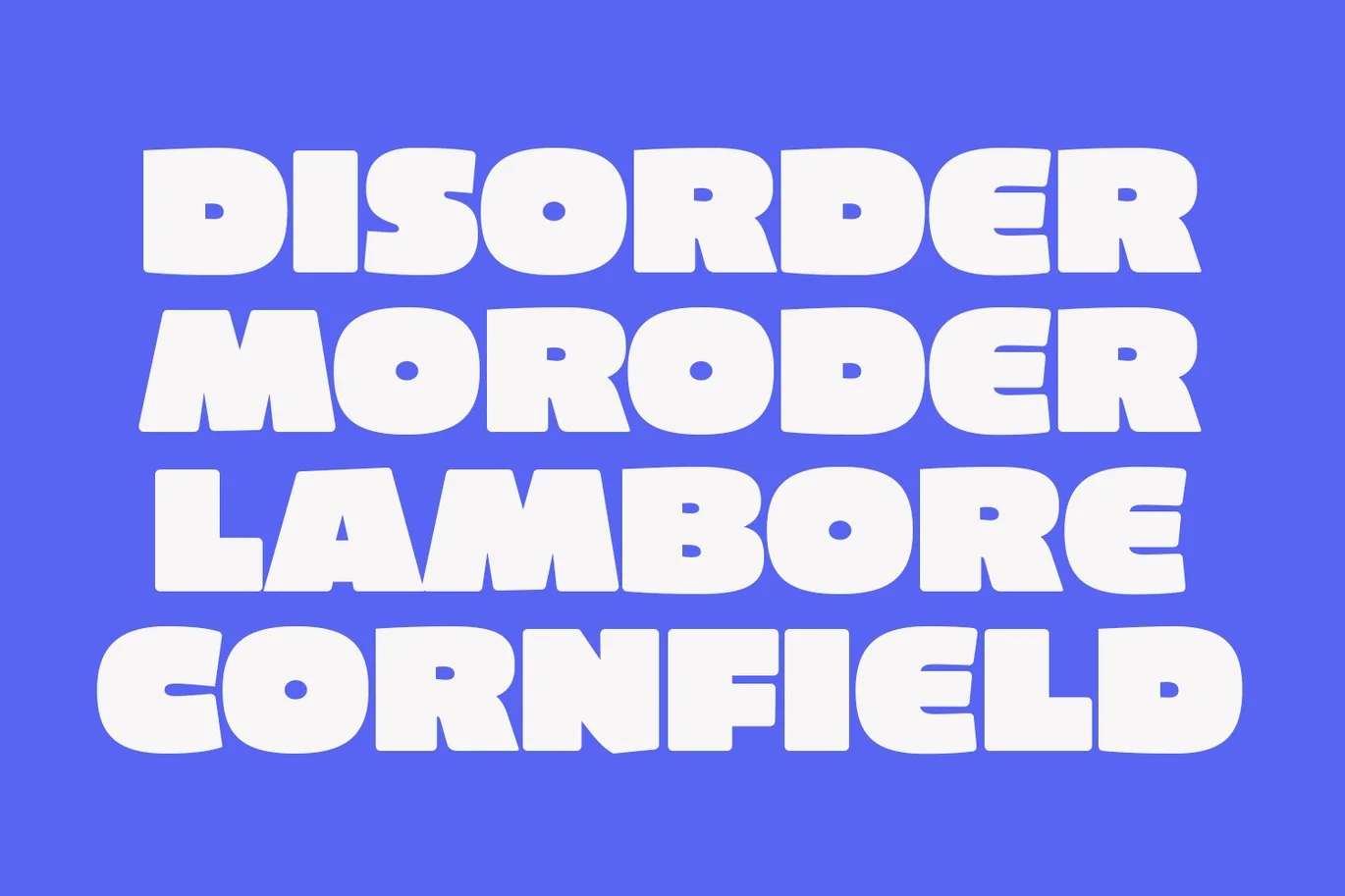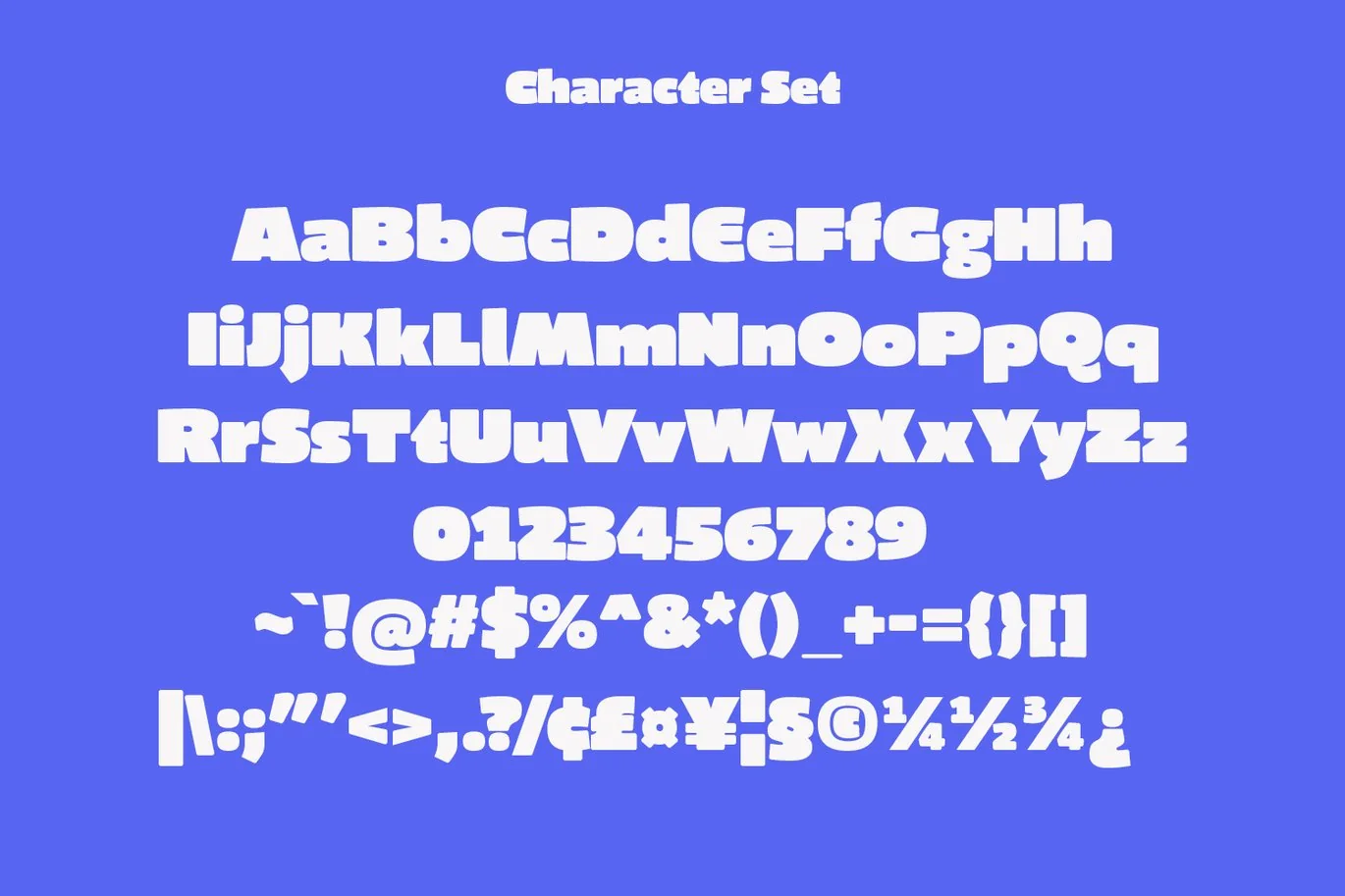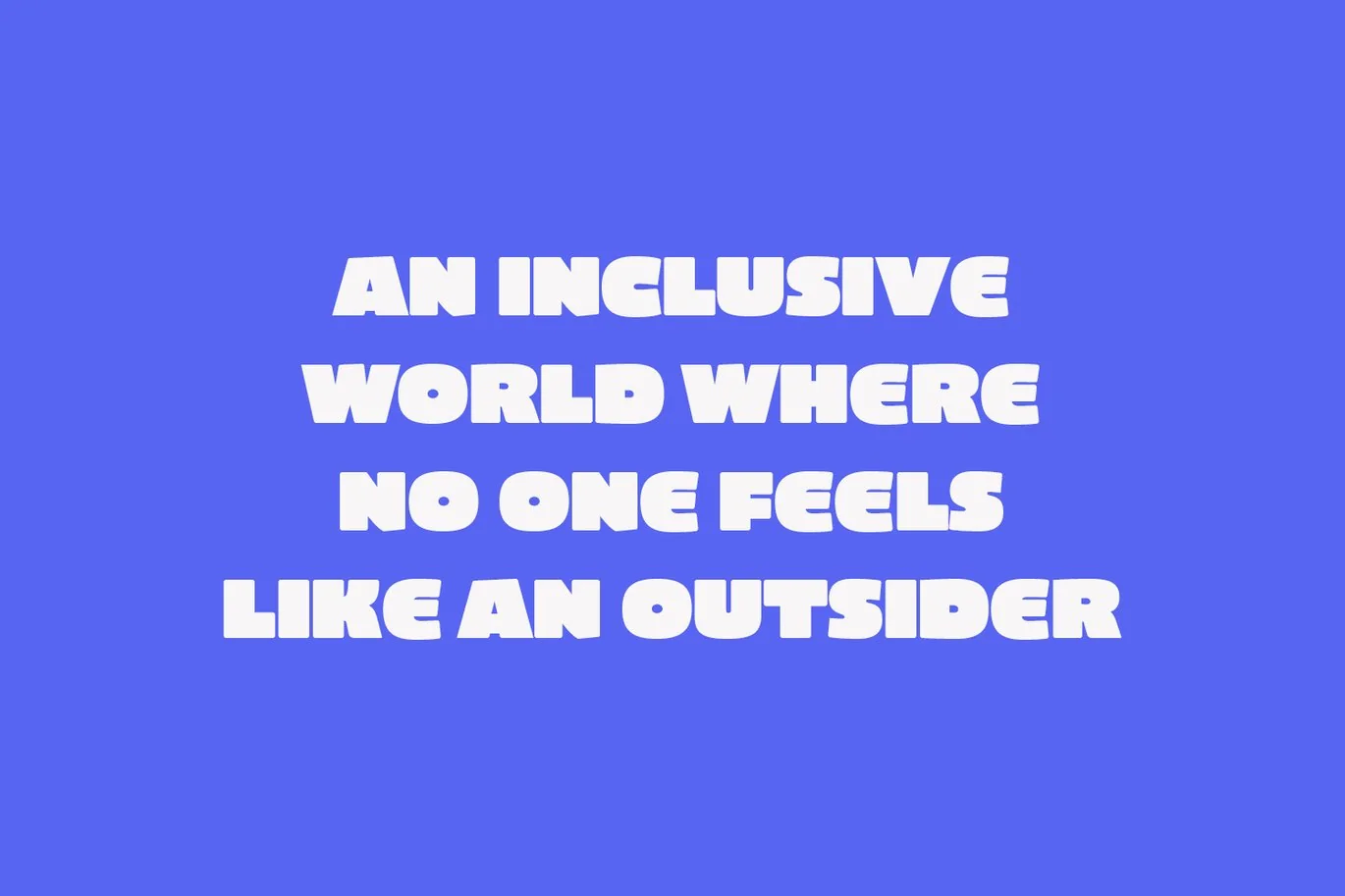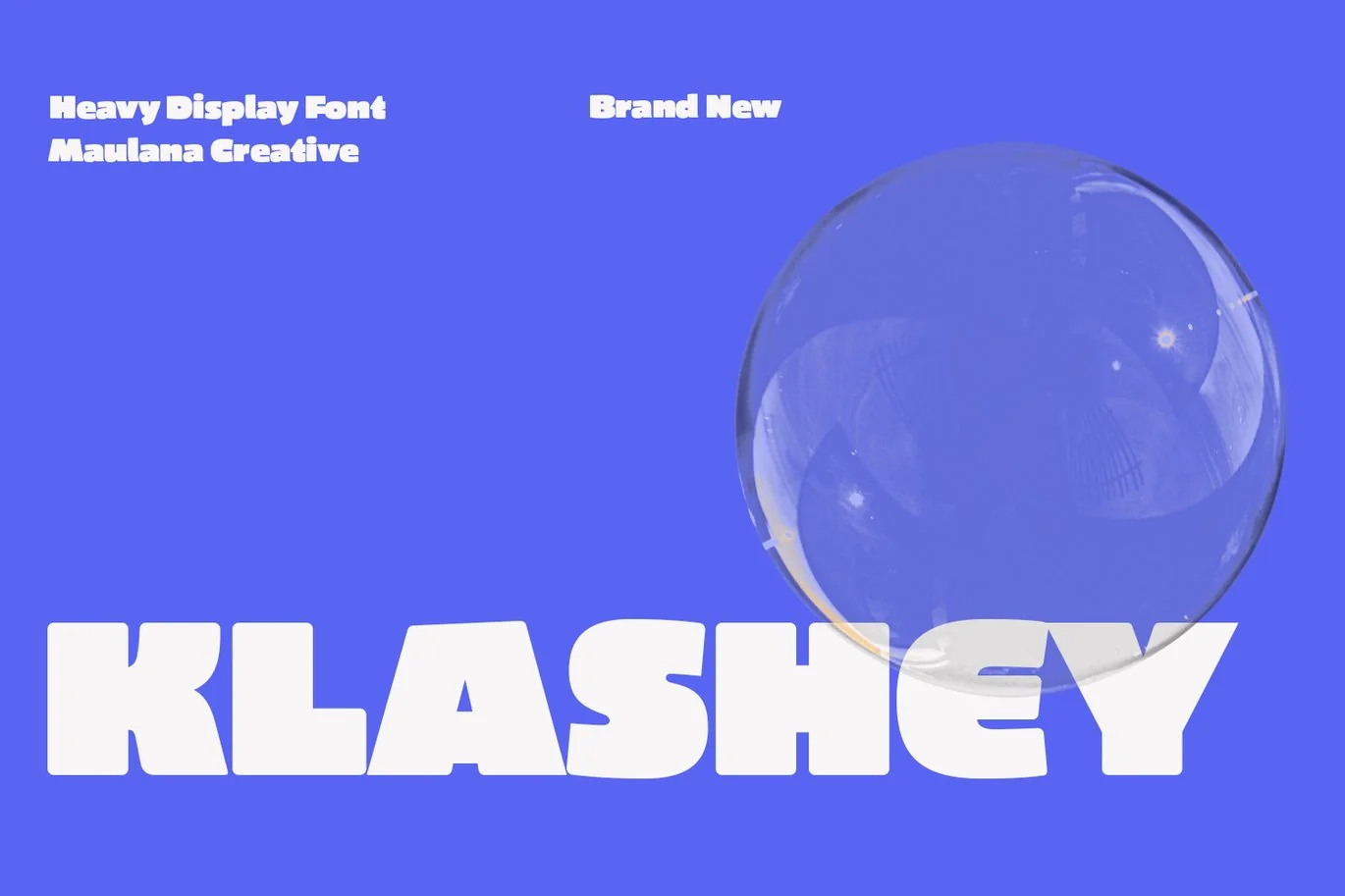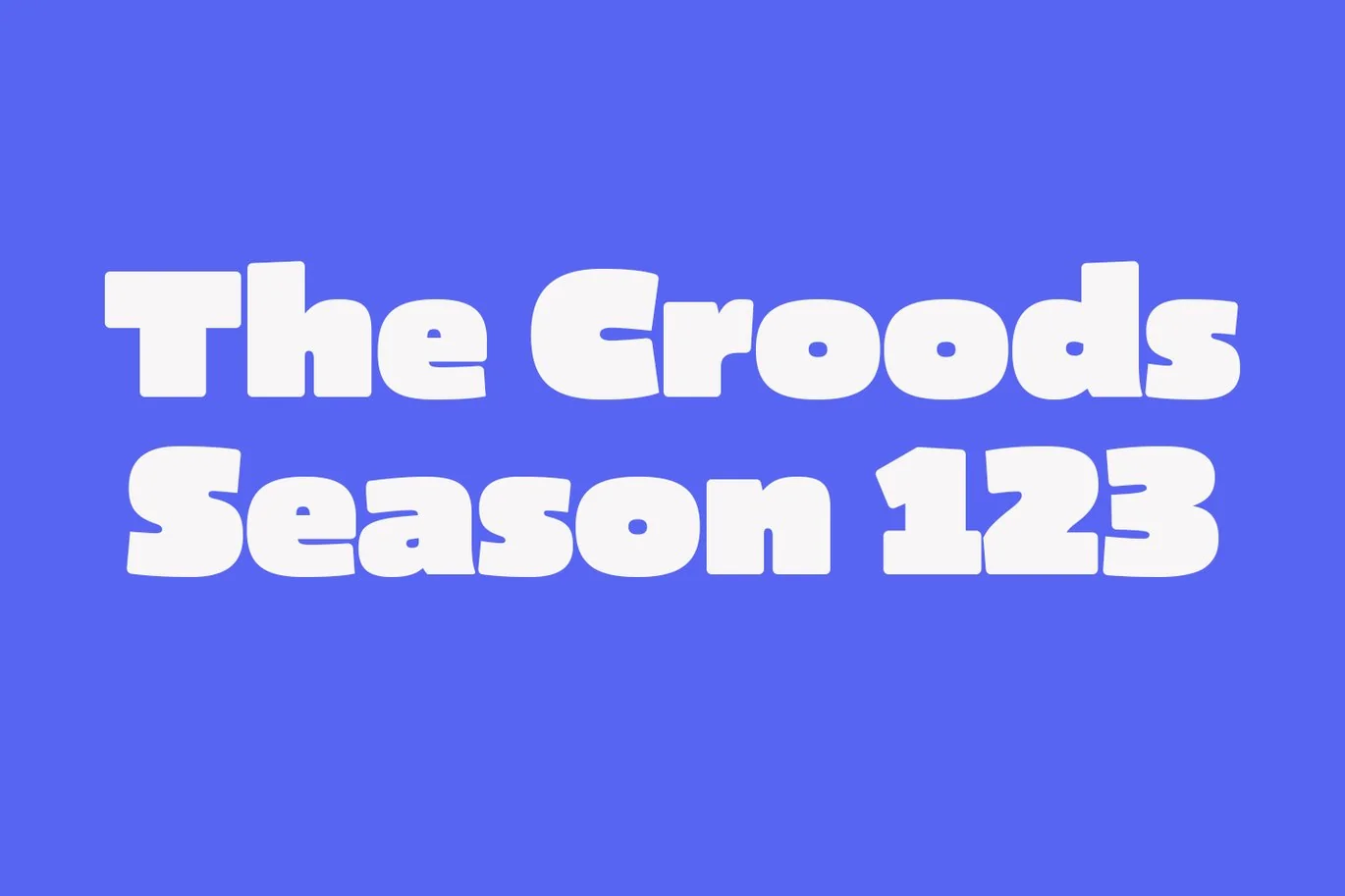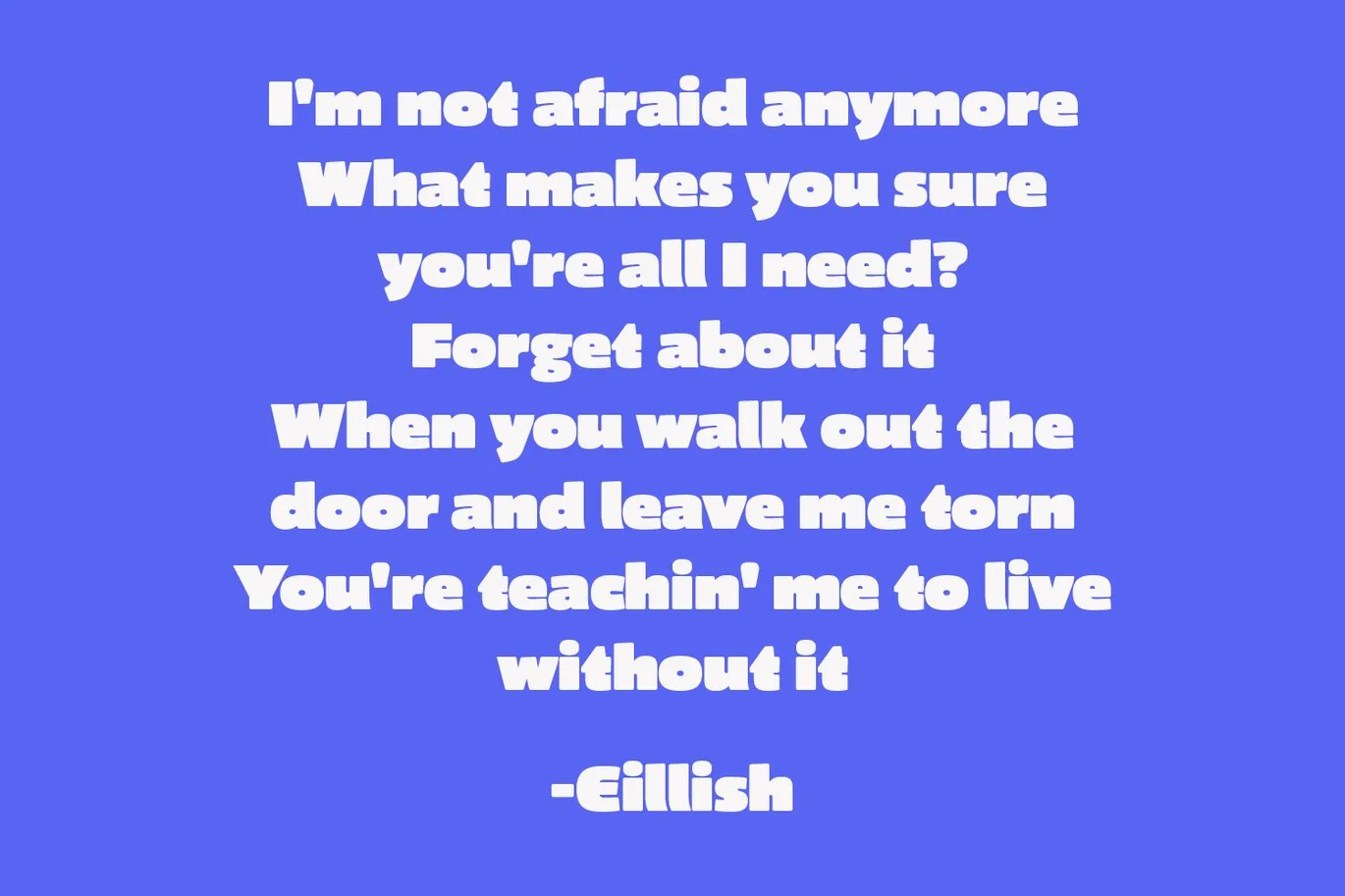
Klashey Decorative Heavy Display Font
Klashey is a sloppy sans serif Display font. Heavy stroke, fun character with a bit of ligatures and alternates. To give you an extra creative work. Klashey font support multilingual more than 100+ language. This font is good for logo design, Social media, Movie Titles, Books Titles, a short text even a long text letter and good for your secondary text font with script or serif. Make a stunning work with Klashey font.